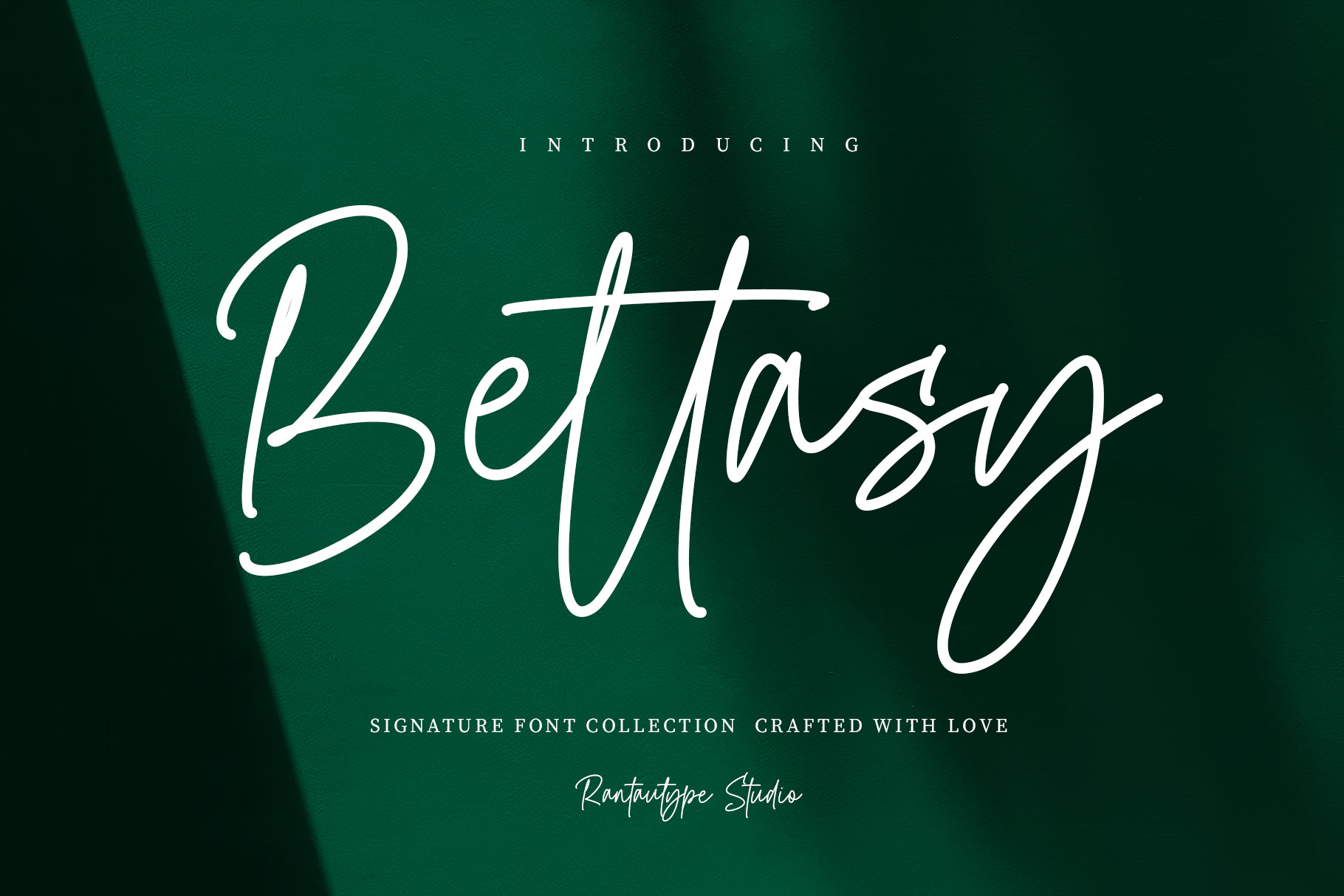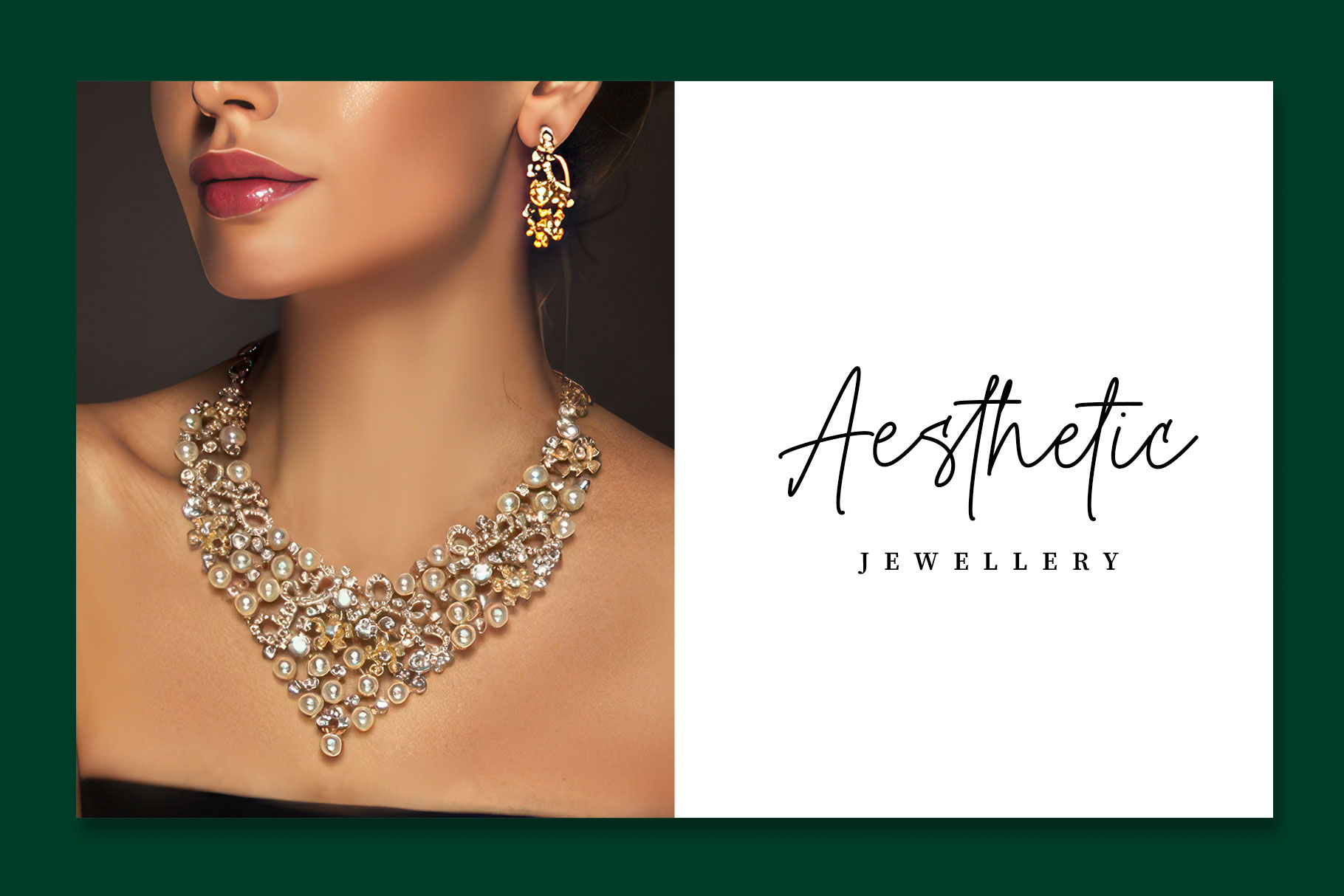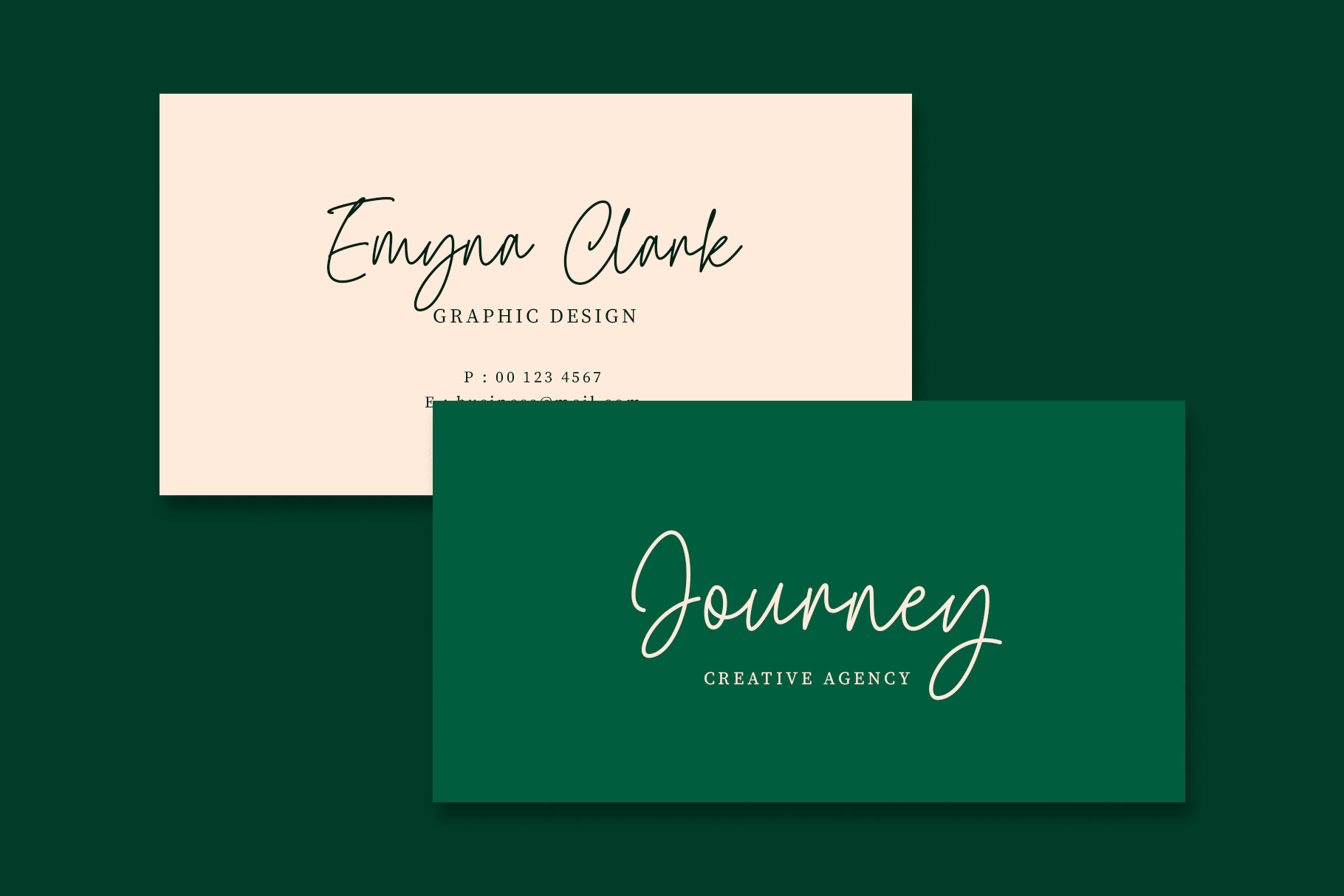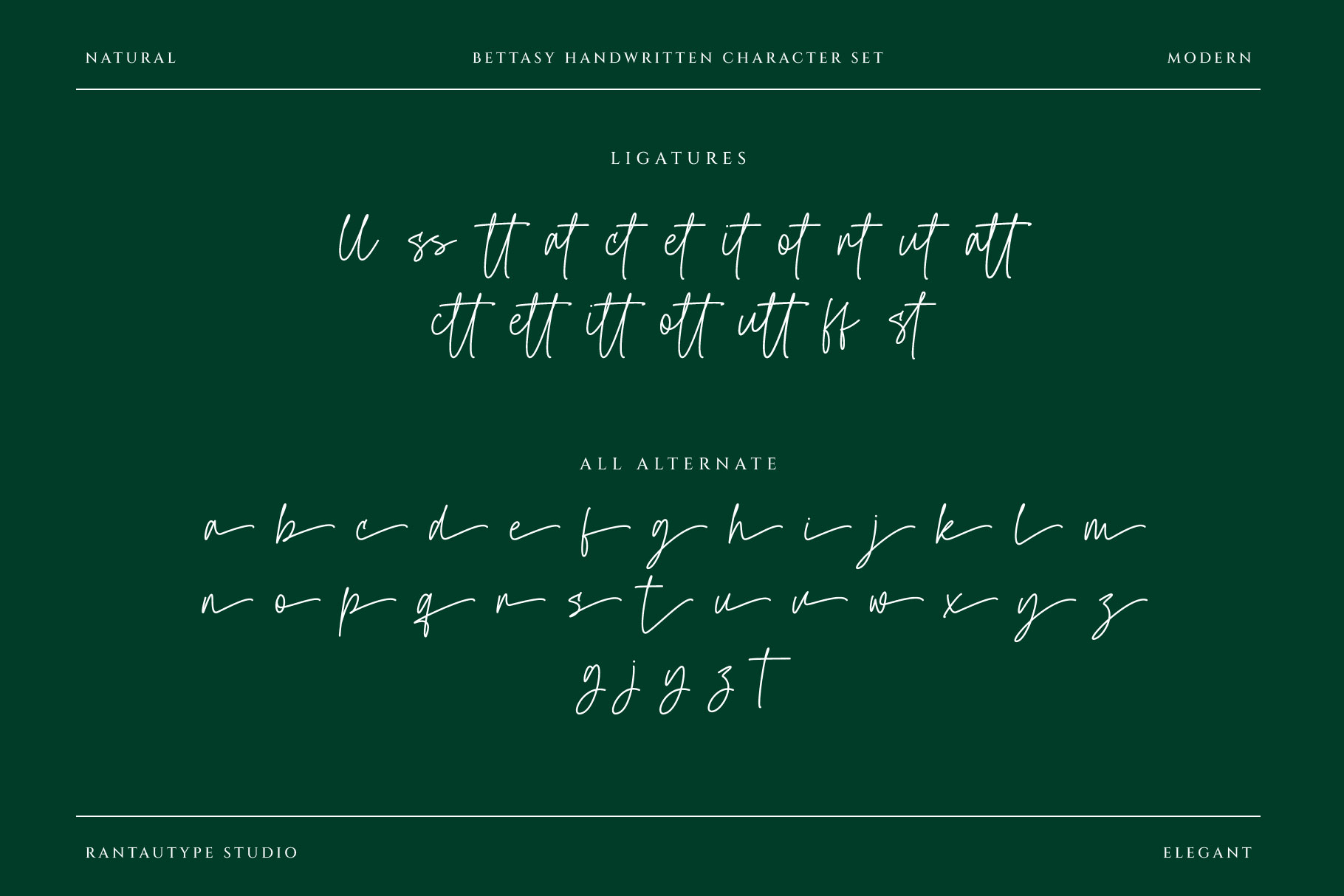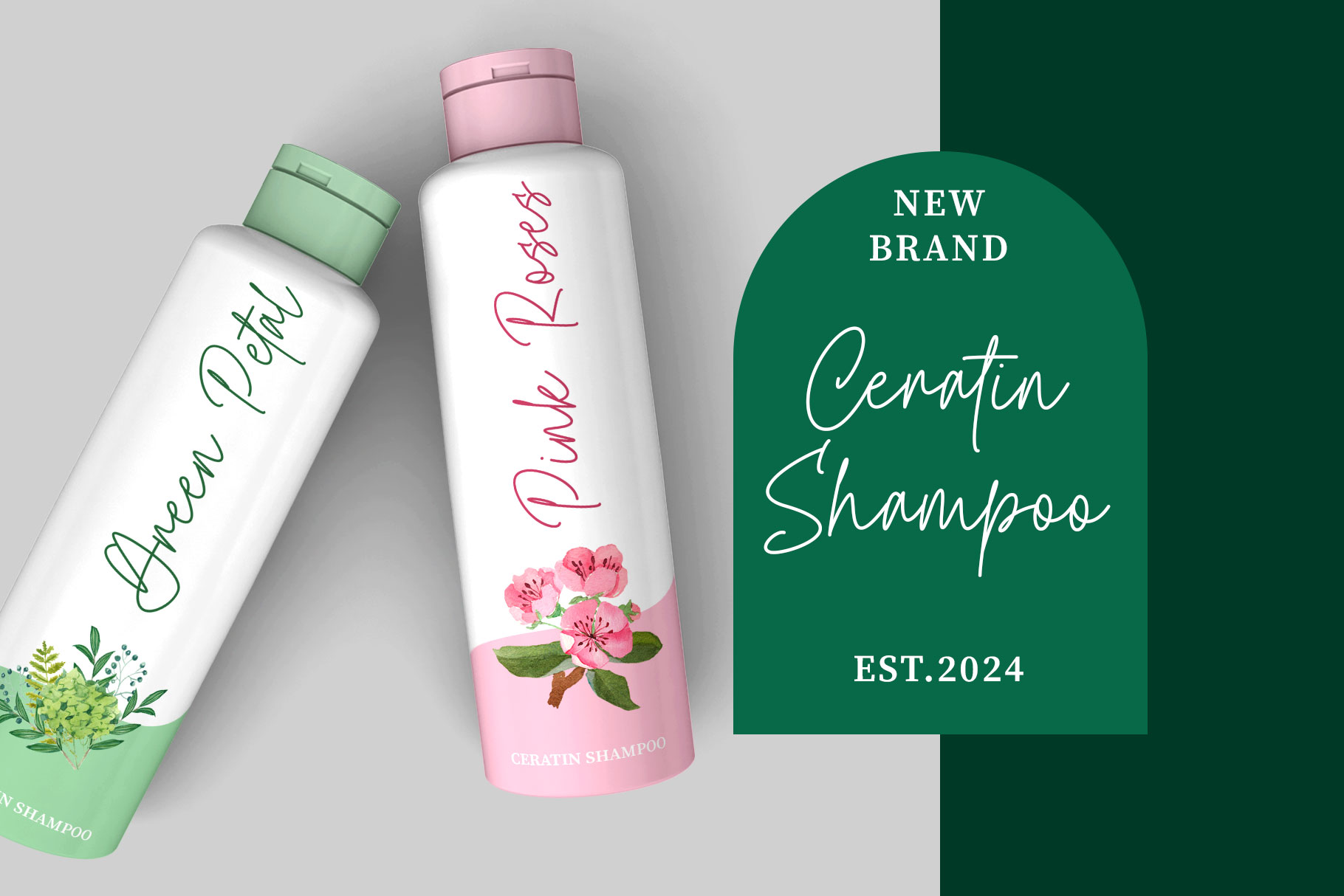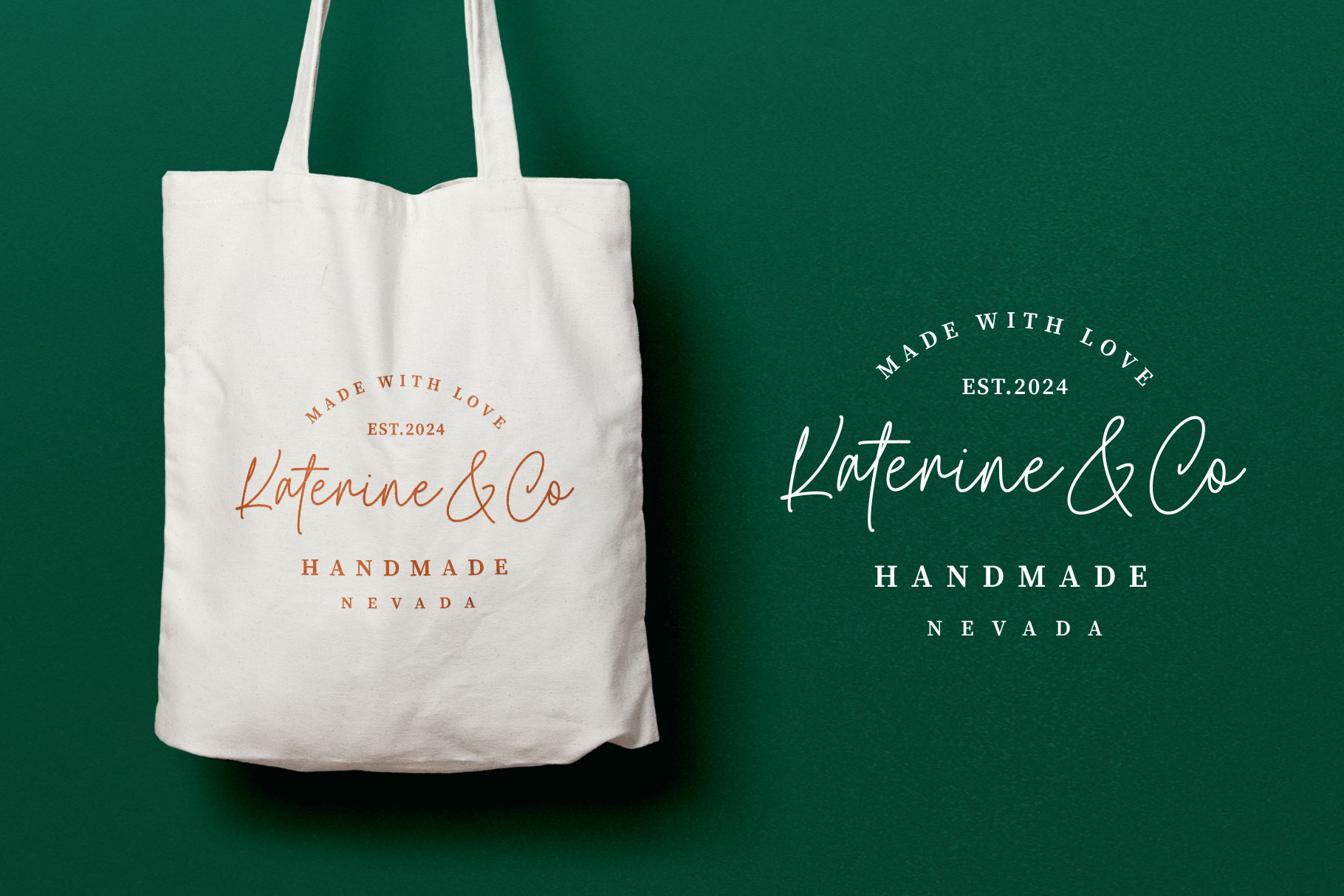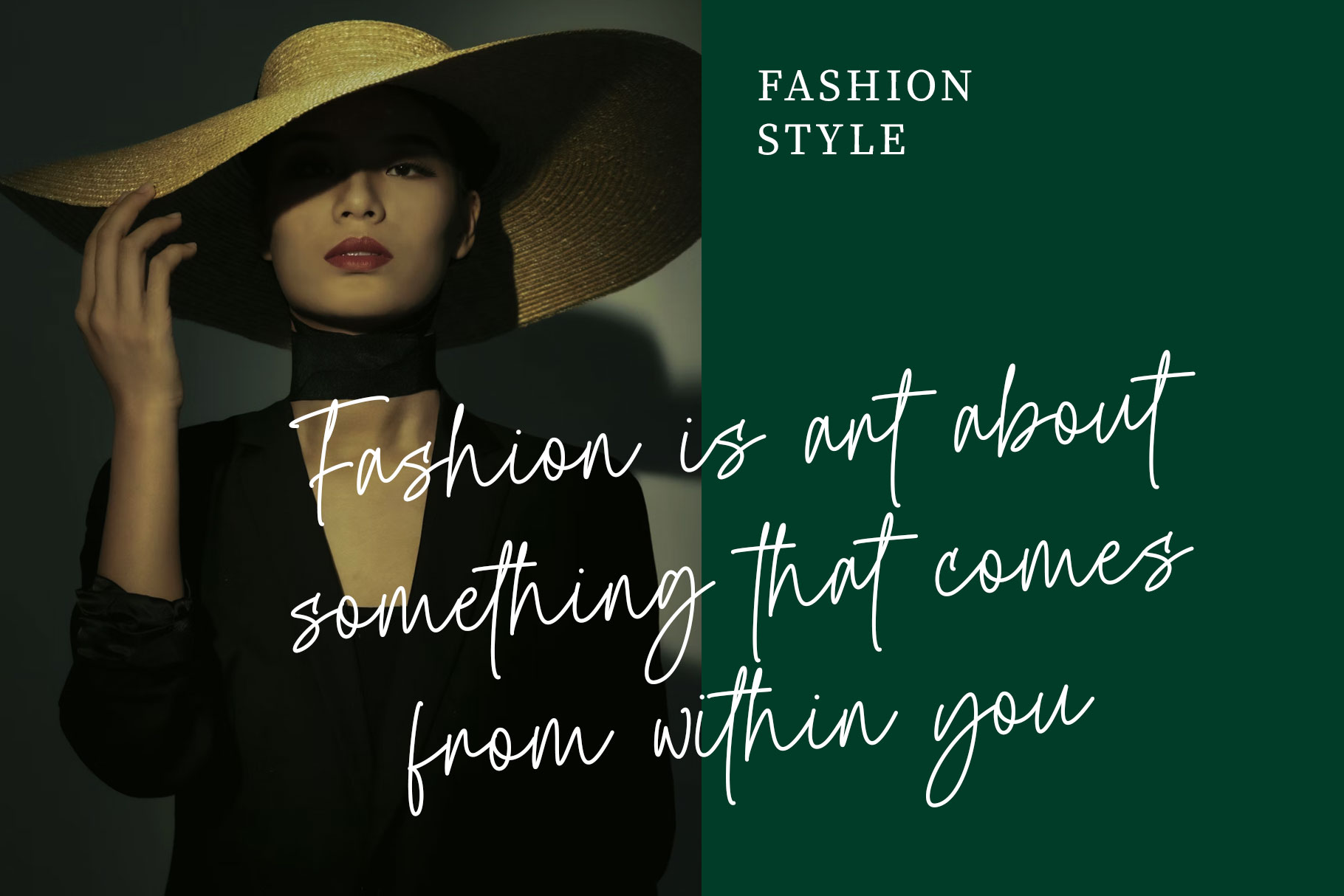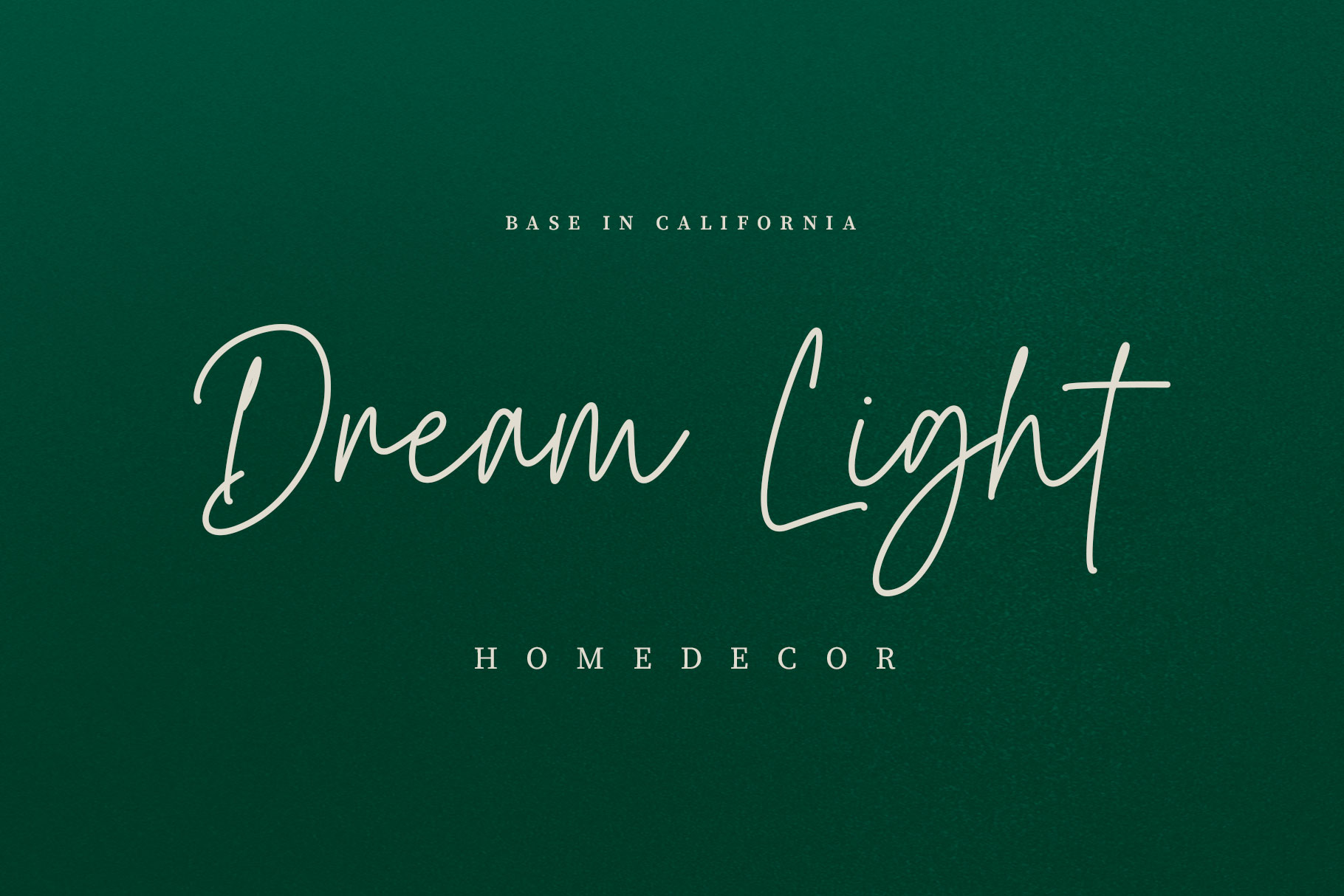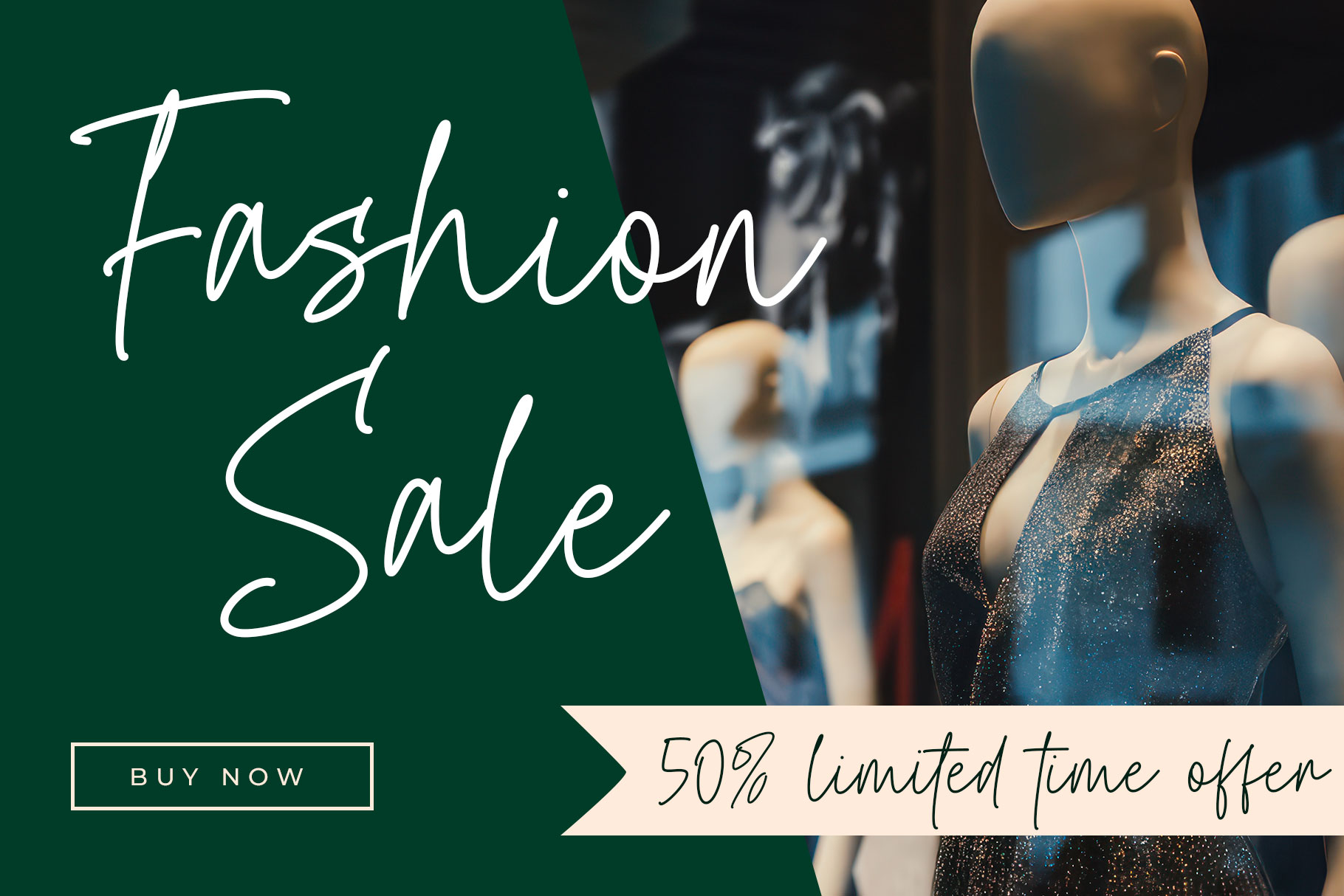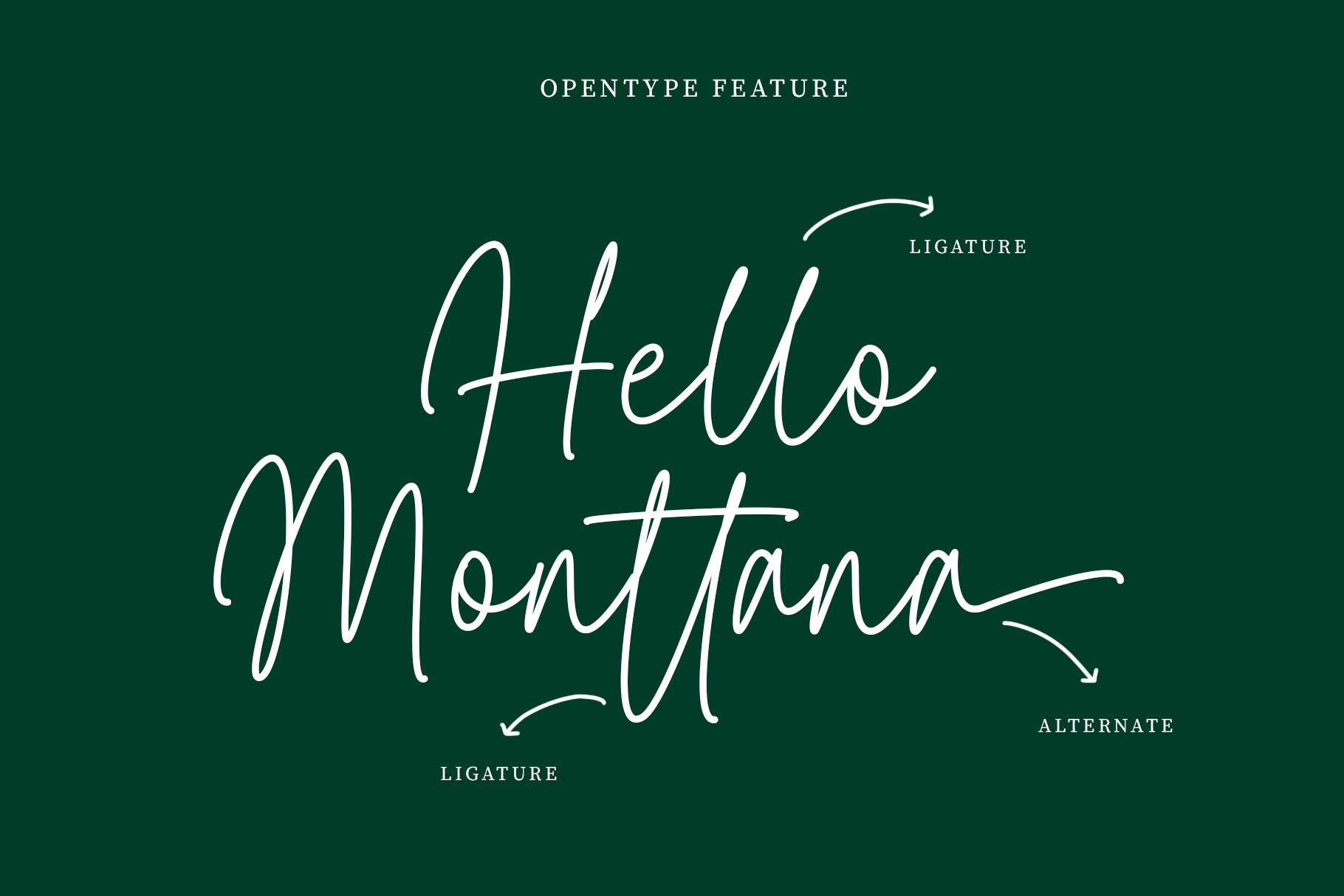
Bettasy Signature Font
Bettasy is signature font made with personal touch. Bettasy come with stylish and trendy style with sense of modern font make your design project more attractive and versatile.
Bettasy is perfectly choice for any creative endeavor, chic, lifestyle design such as logos, title, watermark on photography, cover, branding, display and magazine, wedding event, corporate brand, quotes, album cover, business card, business project and many other design project with handwritten taste.